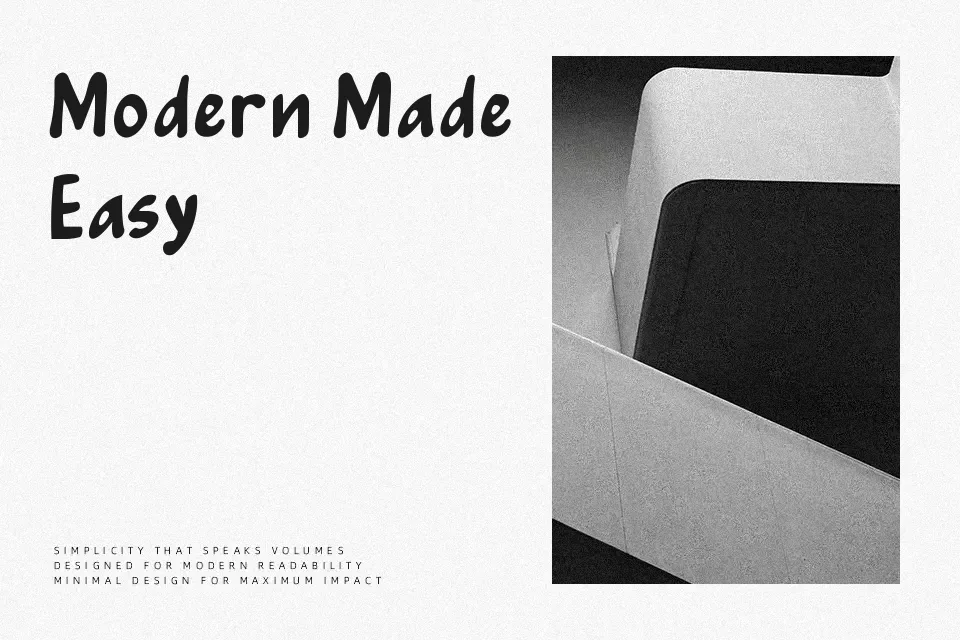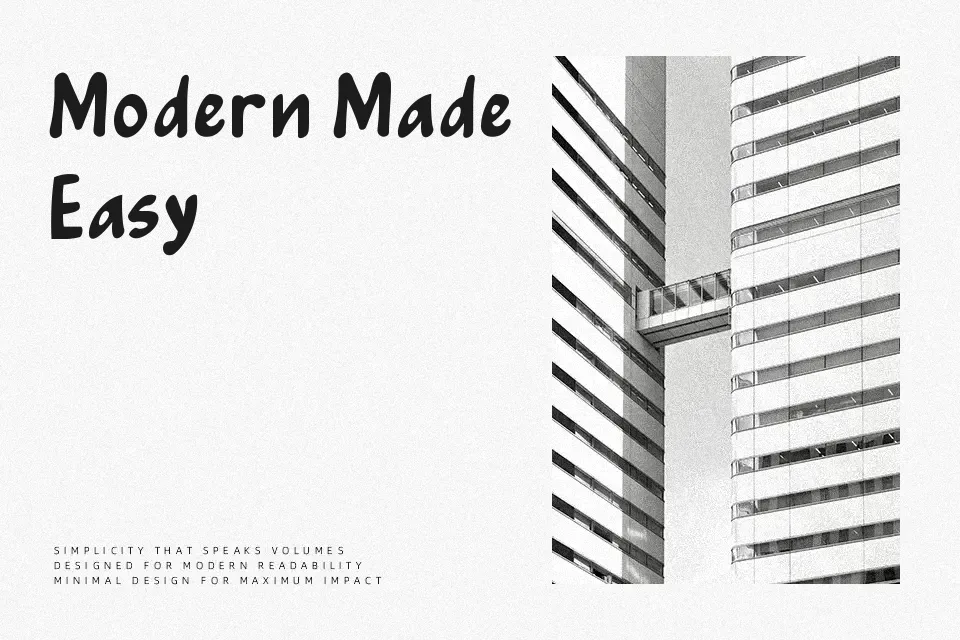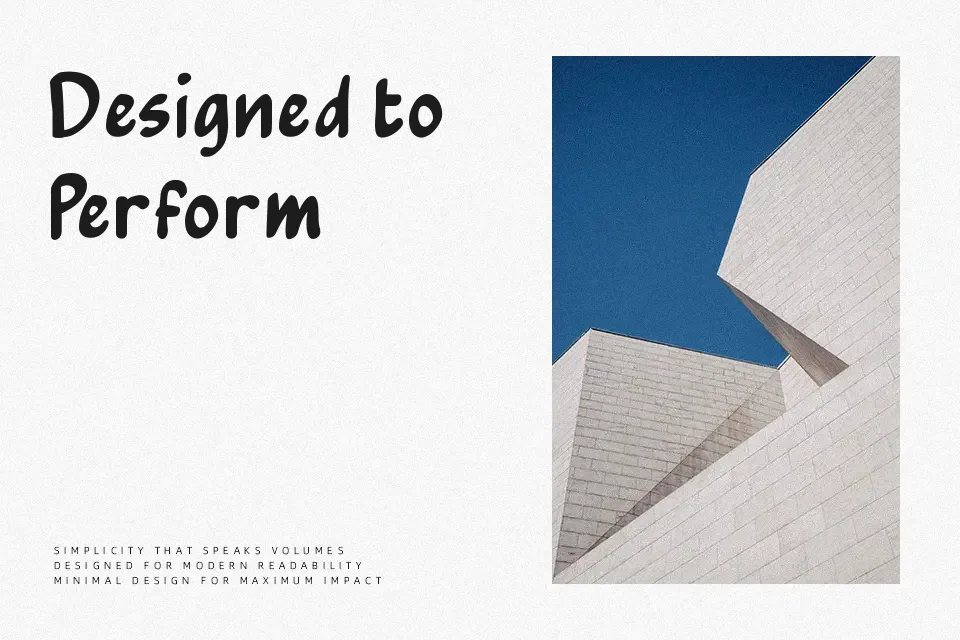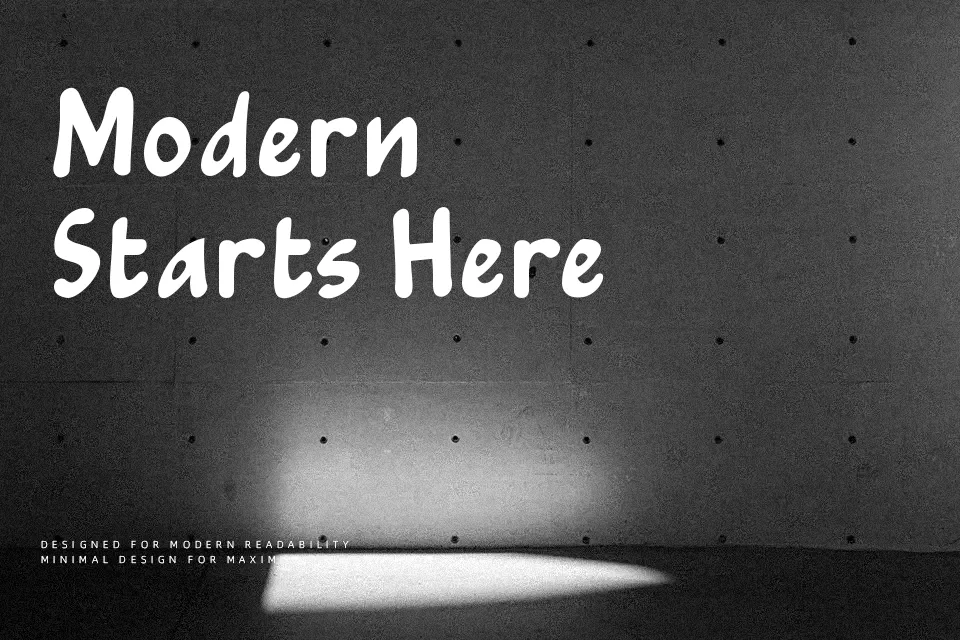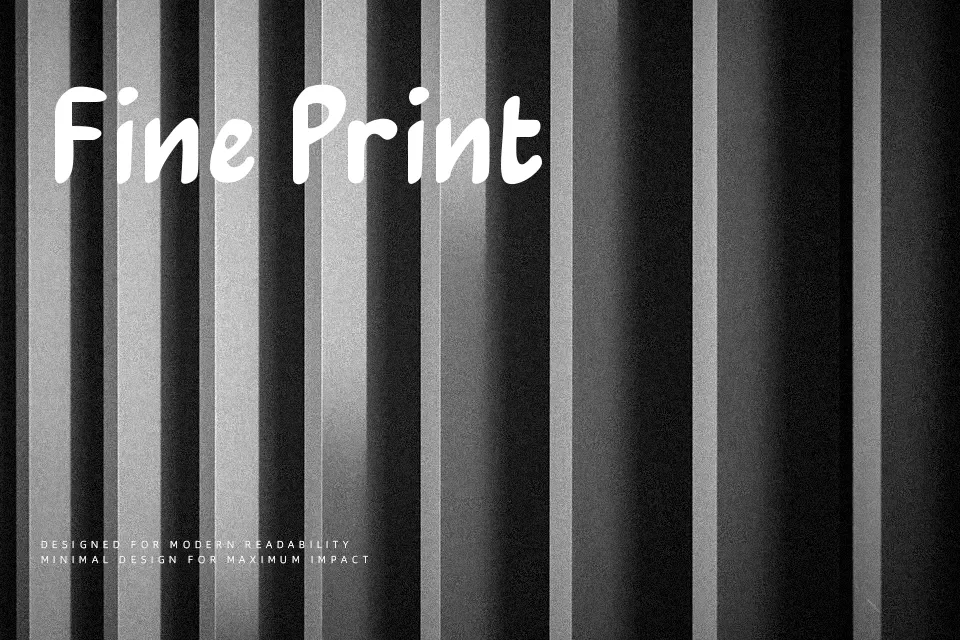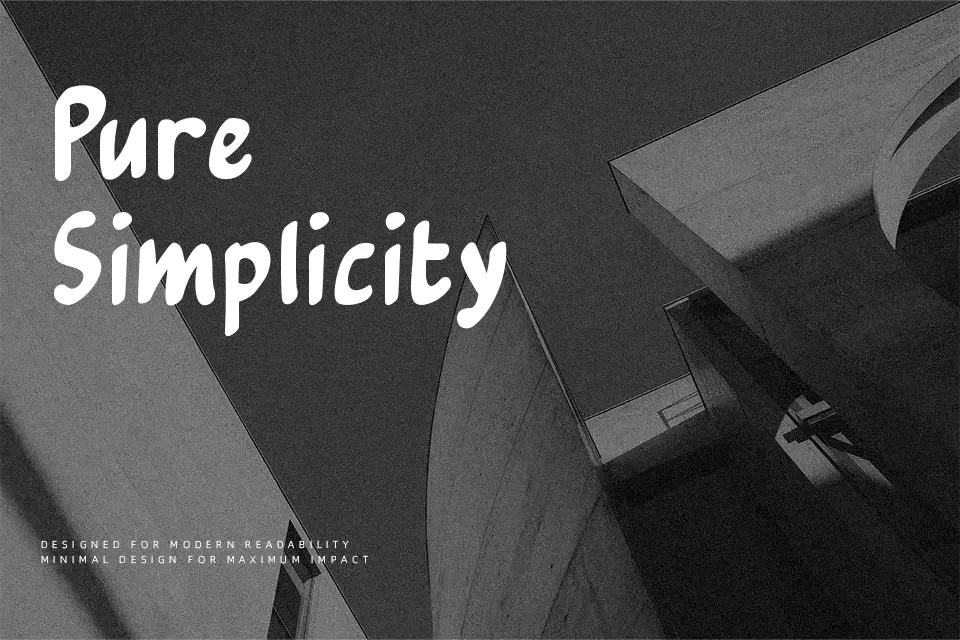
Polsyh Font
Delivering the iconic and clean handwriting aesthetic of classic comic books, Polsyh Font features remarkably consistent stroke weights and open counters. The letterforms are highly legible, showcasing a neat, upright structure that perfectly balances casual charm with structural discipline. Because the characters maintain excellent visual rhythm, this typeface performs beautifully in speech bubbles, playful editorial layouts, and informal poster headlines. However, the distinctly illustrative nature of the design means it is less effective for dense corporate documents or lengthy body paragraphs where a traditional serif would provide better reading comfort. Ultimately, the balanced spacing helps maintain clarity even at smaller display sizes, making it an incredibly versatile tool for sequential art.
comic book dialogue
children’s book illustrations
informal poster headlines
casual branding
dense legal text
lengthy body paragraphs
Perfect for editorial, headline, and kids, with a classic and comic style.